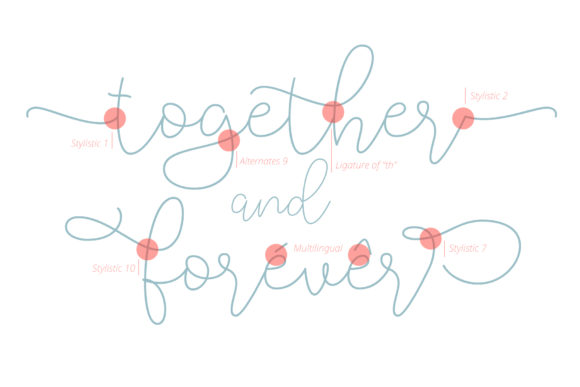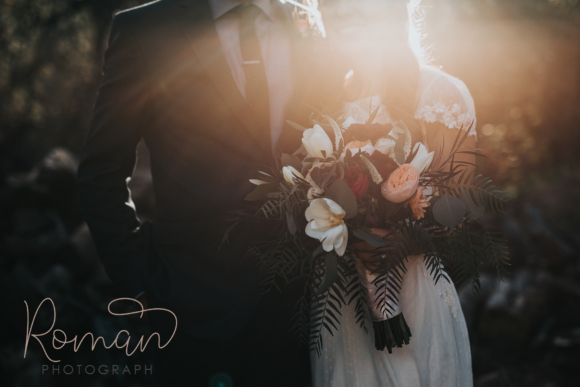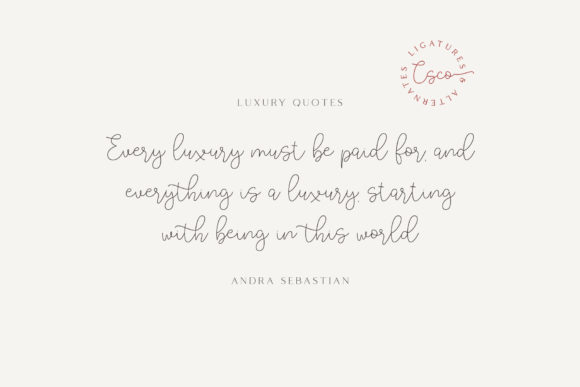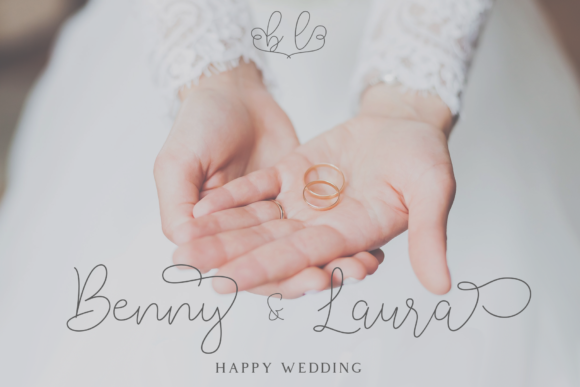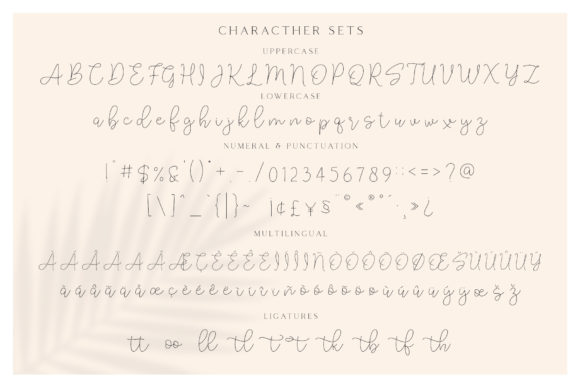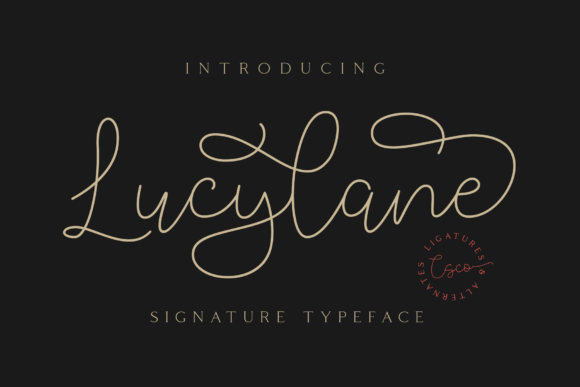
Introduction to Lucylane Font
The Lucylane is a free flowing monoline script.
This handwritten signature exploits the common letter-to-letter transitions of the typical cursive hand by utilizing two style points controlled within the machinations of OpenType Contextual Alternates It can be used to create almost all types of design projects.
Key Features of Lucylane Font